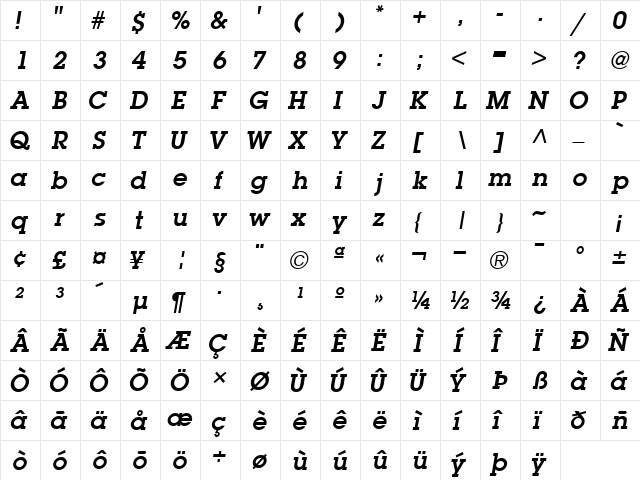
TorrentGraphicSSK SemiBoldItalic
Design Context for TorrentGraphicSSK Typeface
TorrentGraphicSSK offers clean, dependable letterforms without strong stylistic allegiance, making it a practical choice for designers who need flexibility. The dynamic lean of this cut emphasises speed and emphasis in any layout. Its bold stroke weight gives it real presence on the page.
Pro Tip: Use TorrentGraphicSSK for emphasis, pull quotes, and subheadings where its slanted energy can add rhythm to the layout.